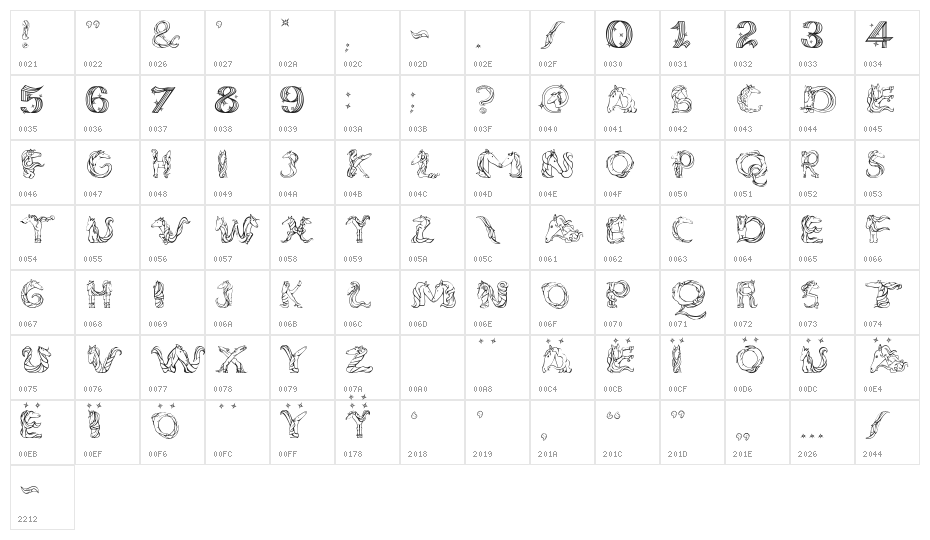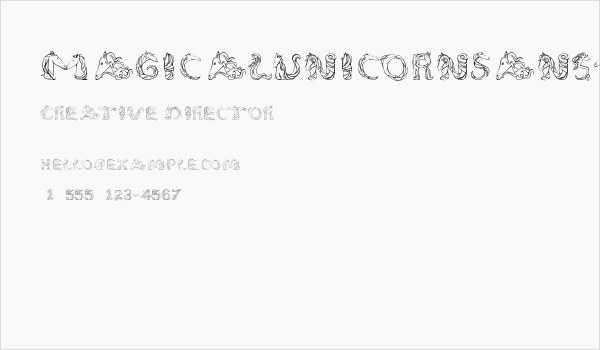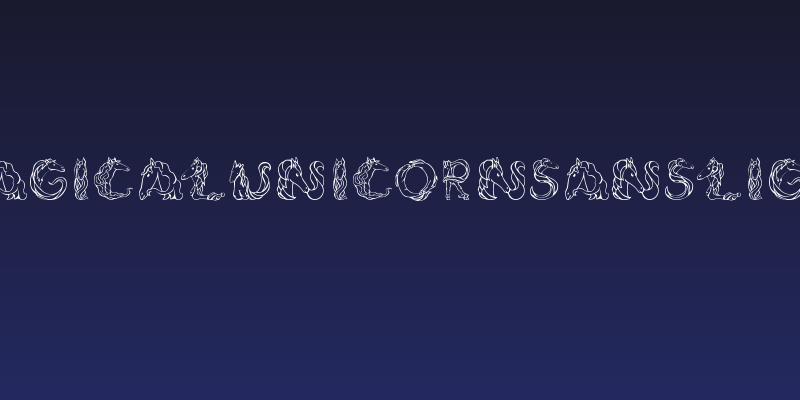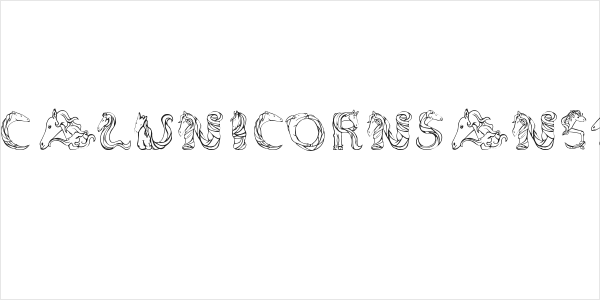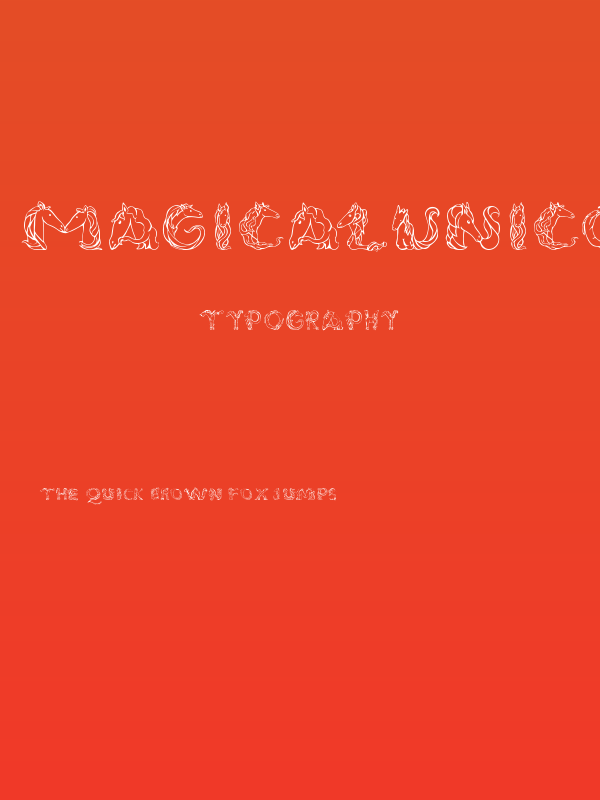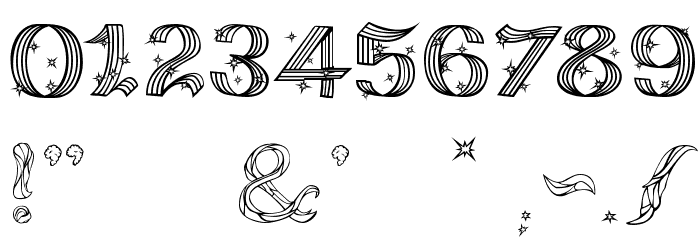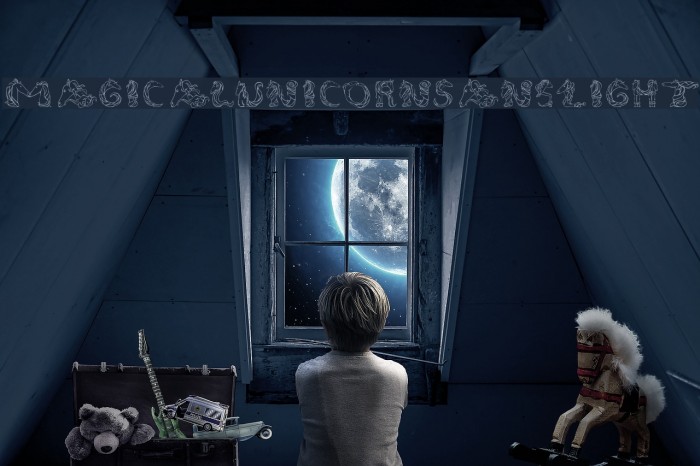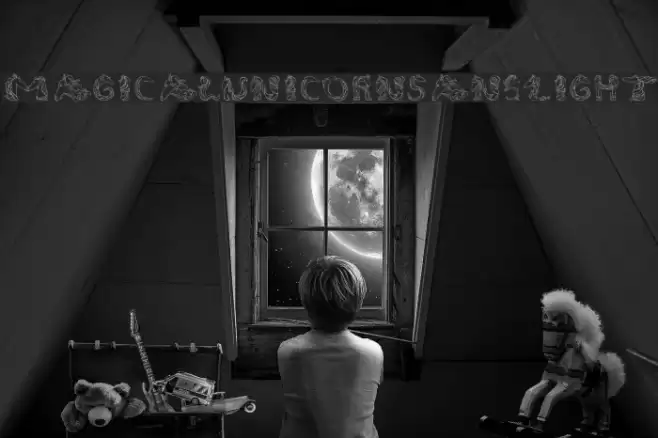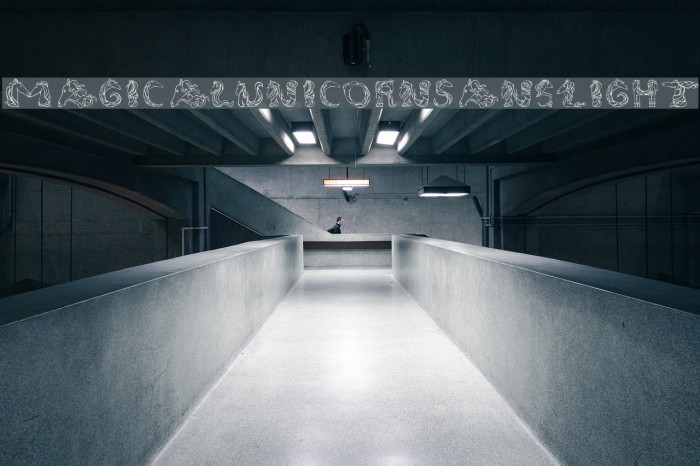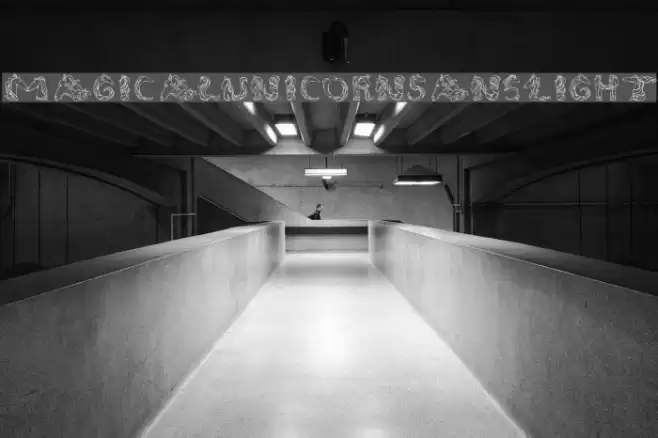
MagicalUnicornSansLight Font
MagicalUnicornSansLight Description
This whimsical and enchanting font features intricate designs within each character, incorporating elements like stars, swirls, and unicorn motifs. The letters are highly decorative, with each character uniquely styled to include magical and mythical elements. The uppercase and lowercase letters maintain a consistent theme, with playful and imaginative details that make the font stand out. Numbers and special characters are equally ornate, adding to the font's overall fantasy-inspired aesthetic. This font is perfect for projects that require a touch of magic and creativity.
| Proposed Projects | Ideal for fantasy-themed invitations, children's book covers, magical event posters, and whimsical branding projects. |